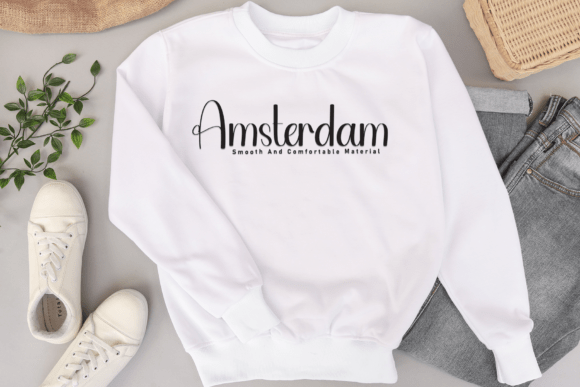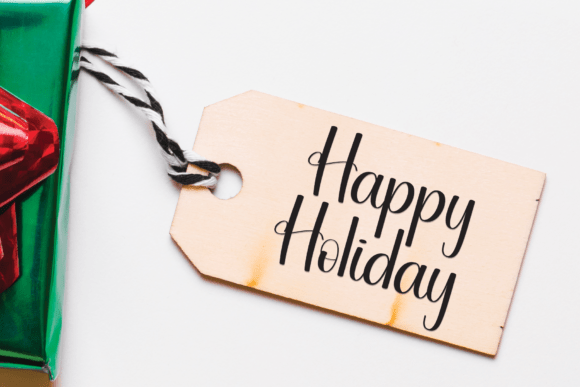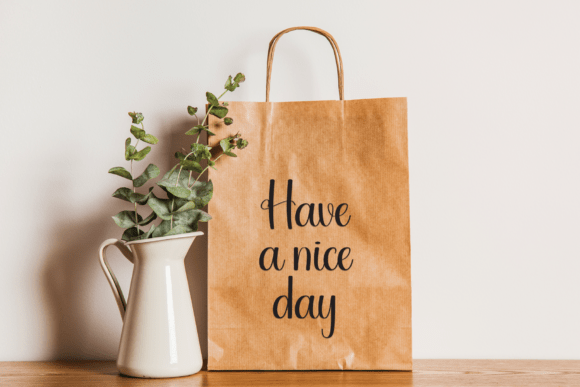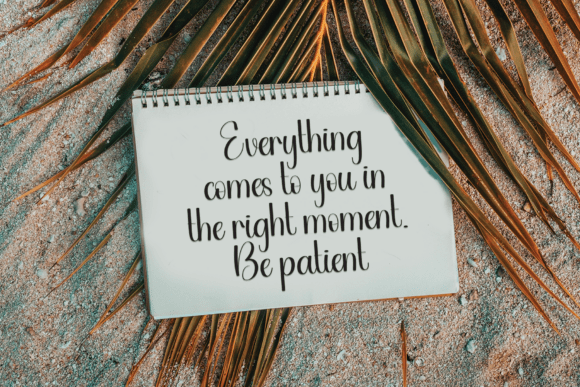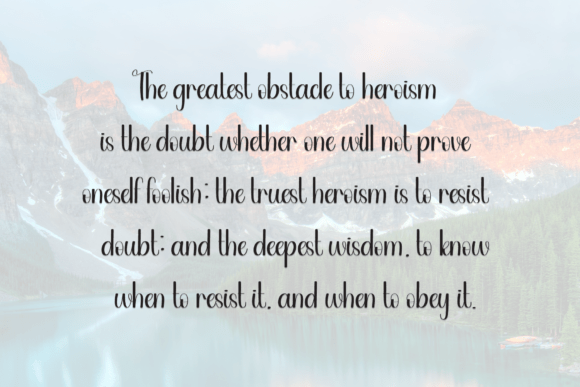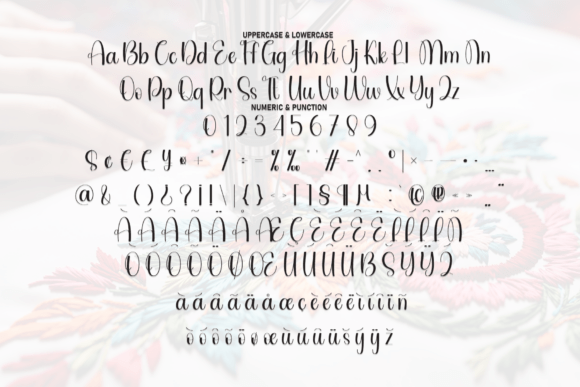
Embroidery Font: Elevate Your Designs with Artistic Flair and Contemporary Elegance
Are you a designer or crafter looking for a font that can add a touch of sophistication and creativity to your work? Look no further than the Embroidery Font. This stylish script font is designed to exude artistic flair and contemporary elegance, making it perfect for a wide range of design applications.
What is Embroidery Font?
Embroidery Font is a modern script font that features fluid brush strokes, dynamic curves, and expressive letterforms. It is designed to capture the essence of hand-painted calligraphy with a modern twist, giving it a fresh and vibrant feel. The font’s natural flow and lively character make it perfect for designs that require a creative and sophisticated touch.
Key Features of Embroidery Font
- Fluid Brush Strokes: The Embroidery Font features fluid brush strokes that give it a natural, hand-painted look.
- Dynamic Curves: The font’s dynamic curves add a sense of movement and energy to your designs.
- Expressive Letterforms: Each letterform in the Embroidery Font is designed to be expressive and unique, adding character to your designs.
- Modern Twist: The font’s modern twist on traditional calligraphy makes it perfect for contemporary designs.
Uses of Embroidery Font
The Embroidery Font is versatile and can be used in a variety of design applications, including:
- Logos: The font’s creative and sophisticated look makes it perfect for logos that require a touch of elegance.
- Invitations: The Embroidery Font is ideal for invitations, such as wedding invitations, birthday invitations, and baby shower invitations.
- Packaging: The font’s modern and fresh look makes it perfect for packaging designs that require a creative touch.
- Social Media Graphics: The Embroidery Font can be used to create eye-catching social media graphics that stand out from the crowd.
Benefits of Using Embroidery Font
The Embroidery Font offers a range of benefits, including:
- Visual Impact: The font’s creative and sophisticated look makes it perfect for designs that require a visual impact.
- Versatility: The Embroidery Font can be used in a variety of design applications, making it a versatile addition to your font collection.
- Elegance: The font’s elegant and refined look makes it perfect for designs that require a touch of sophistication.
Tips for Using Embroidery Font
Here are some tips for using the Embroidery Font:
- Use it sparingly: The Embroidery Font is best used sparingly to add a touch of elegance and creativity to your designs.
- Pair it with other fonts: The font can be paired with other fonts to create a unique and interesting design.
- Experiment with colors: The Embroidery Font can be used with a range of colors to create a bold and eye-catching design.
The Embroidery Font is a stylish script font that exudes artistic flair and contemporary elegance. Its fluid brush strokes, dynamic curves, and expressive letterforms make it perfect for a wide range of design applications. With its natural flow and vibrant character, this font delivers both visual impact and versatility. Whether you’re a designer or crafter, the Embroidery Font is a great addition to your font collection.